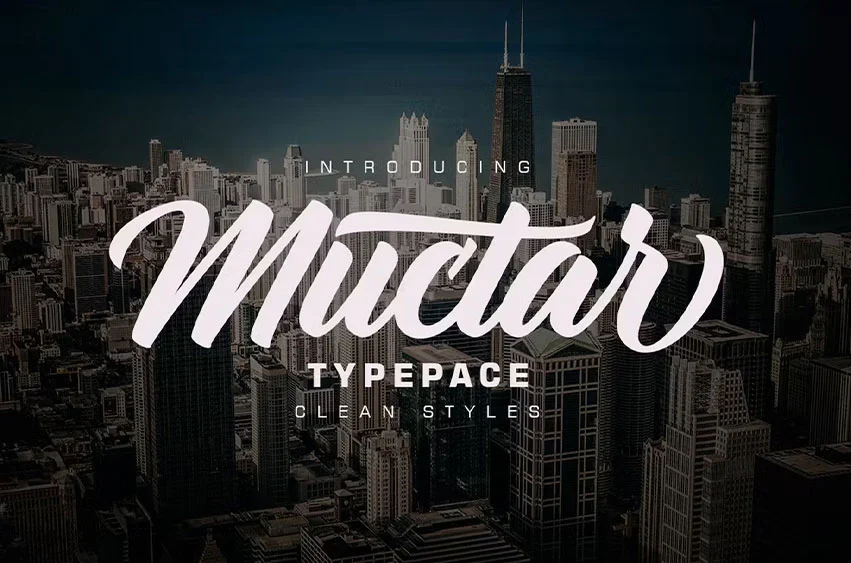
Muctar Font is a font bold, so, brush script that is beautiful and unique, it is a model of modern calligraphy typefaces, in combination with a calligraphy writing style.
The Features of this fonts is;
- Contextual Alternates
- Standart ligatures
- Stylistic Alternates
- Stylistic sets